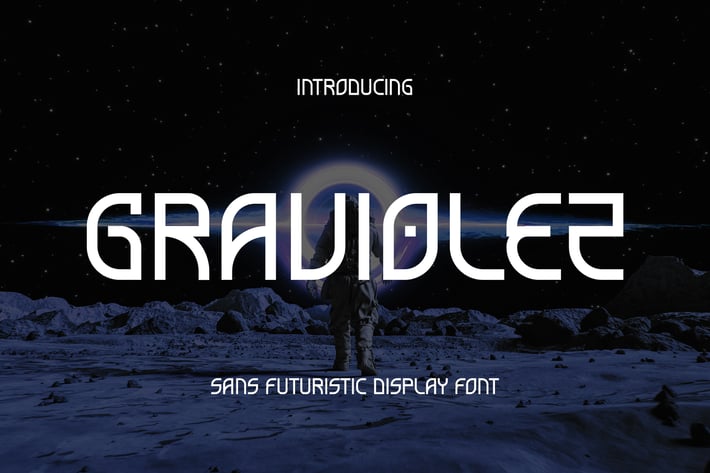
Graviolez - Sans Font
Graviolez - Sans Font contains a lowercase, uppercase, symbol, and also supports multi-language. There’s a lot of ligature in this font. Graviolez - Sans Font also comes with ligatures, stylistic alternates, and many more.
this font is suitable for fashion, branding, catalog, and other designs that you want.